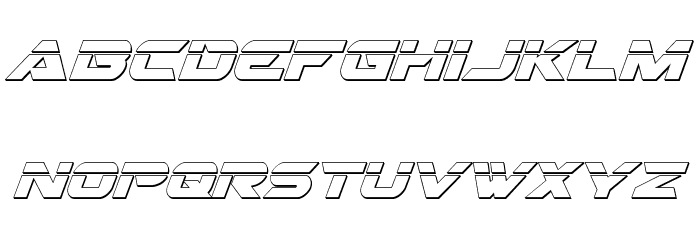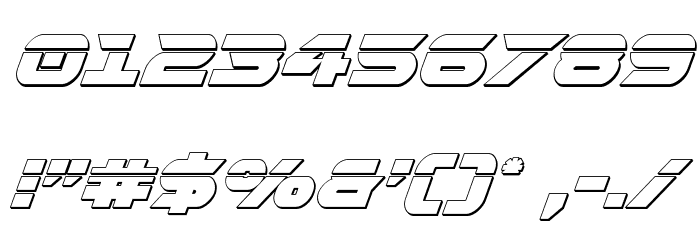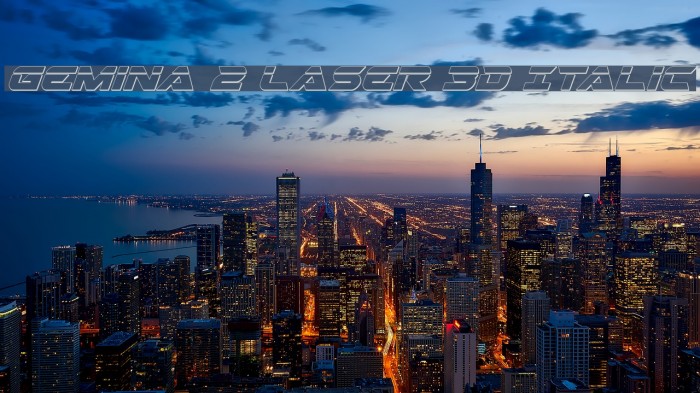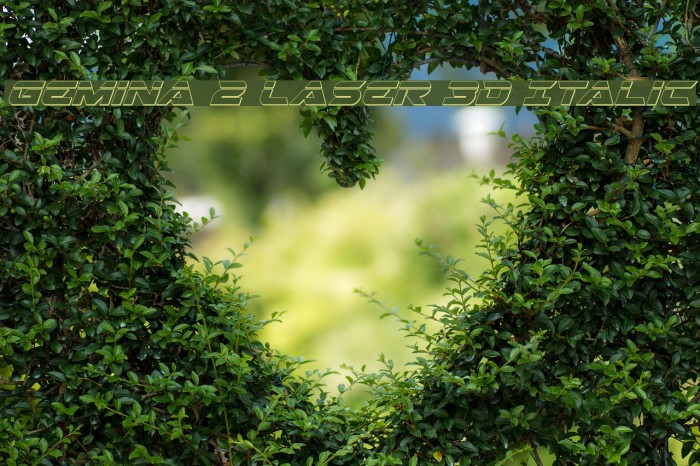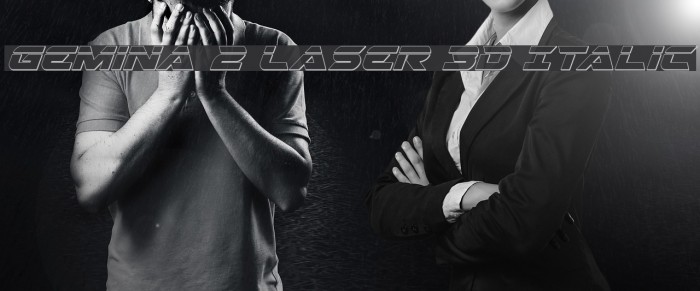
Gemina 2 Laser 3D Italic Font
This font features a futuristic and geometric design, characterized by its sharp angles and three-dimensional appearance. The italicized style adds a dynamic and forward-leaning aspect, enhancing its modern and cutting-edge feel. Each character is outlined, creating a hollow effect that emphasizes the structural design. The font maintains a consistent stroke width, contributing to a uniform and cohesive look. Its unique style is reminiscent of digital or sci-fi themes, making it stand out in any design project.
A futuristic, geometric, and italicized font with a 3D outline effect.
- Proposed Projects: Ideal for sci-fi movie posters, video game titles, tech branding, and futuristic event flyers.